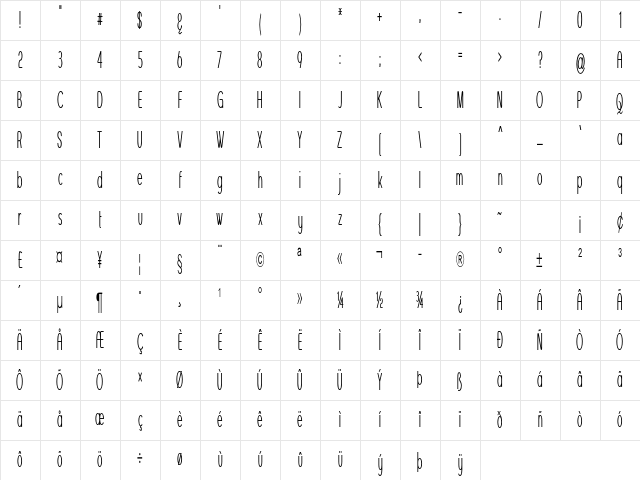
Complete Pip Extra-condensed Regular glyph index. Displaying only characters natively supported by Pip Extra-condensed Regular font.
Pip is a composed and adaptable typeface that performs quietly and consistently across a wide range of design contexts. Its narrow stance lets it pack a punch even in space-constrained designs.